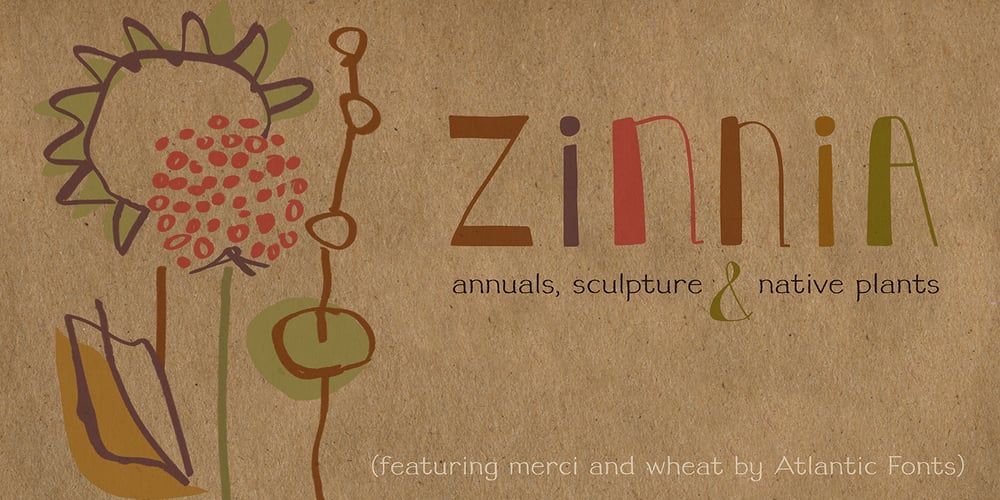
Merci
Merci font
Merci Font Family was designed by Amy Dietrich and published by Atlantic Fonts. Merci contains 1 styles and family package options. “Merci” is a playful, cool, hand-drawn font ready to mix things up with interchangeable upper and lower case letters and double letter ligatures. Get artsy, go graphic, feel the groove, and spread some love.